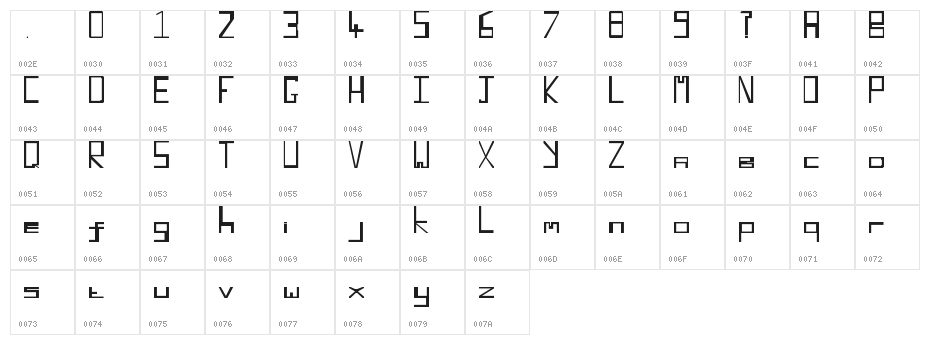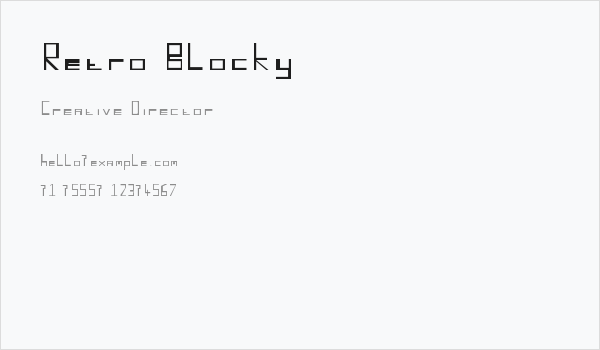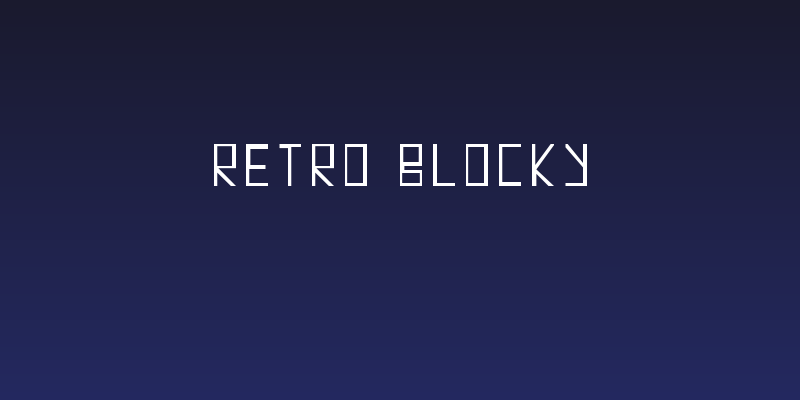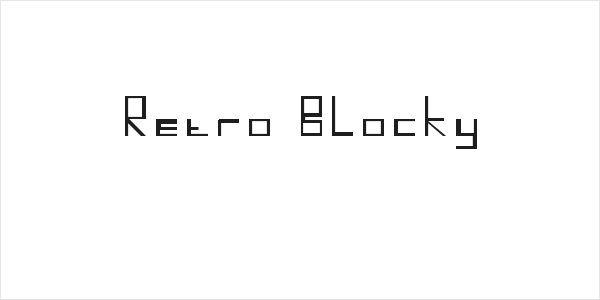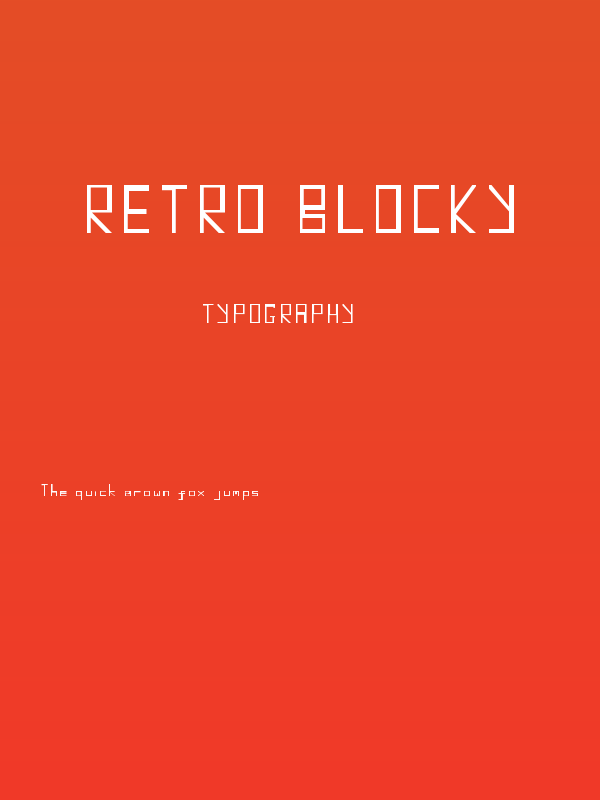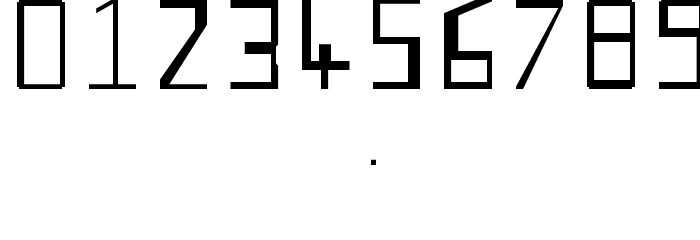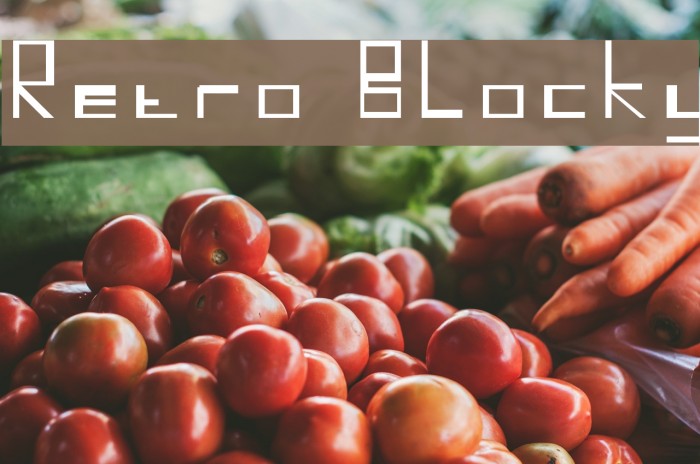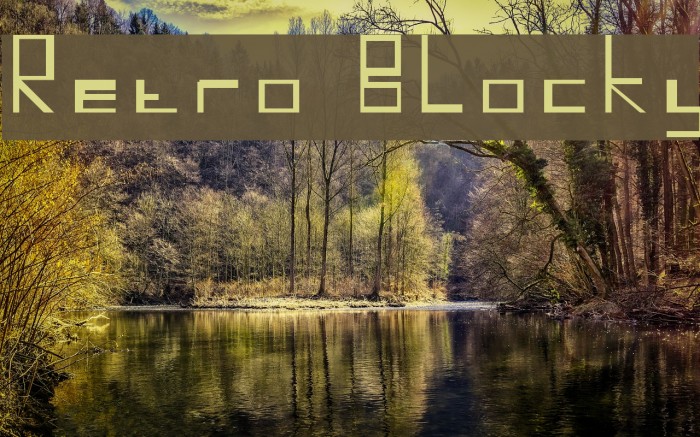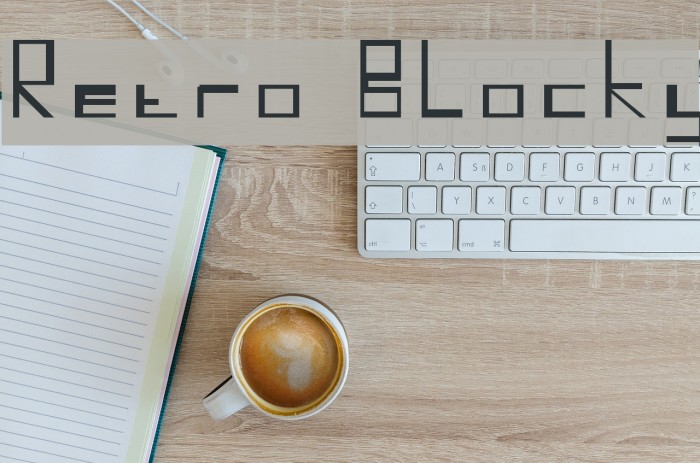
Retro Blocky Font
Retro Blocky Description
This font features a retro, blocky design with a distinct geometric style. The uppercase letters are bold and angular, with sharp edges and a uniform height that gives them a strong presence. The lowercase letters maintain the blocky aesthetic but introduce some variation in height and width, adding a playful touch. The numerals are consistent with the overall geometric theme, each digit crafted with precision and clarity. Special characters like $?&%!#*= are integrated seamlessly, maintaining the font's cohesive look. This font's unique style is reminiscent of early digital displays, making it ideal for projects that require a vintage or tech-inspired feel.
| Overall Style | Retro |
| Proposed Projects | Ideal for retro-themed designs, tech-inspired branding, video game graphics, and digital art projects. |